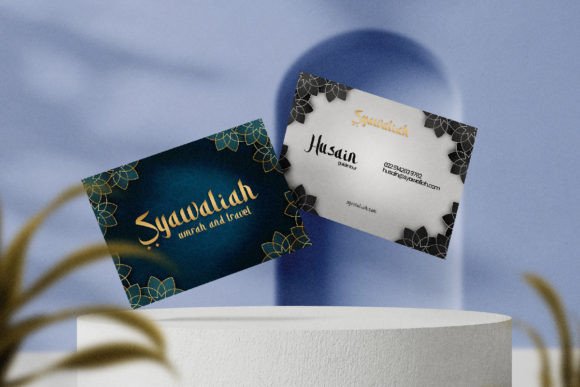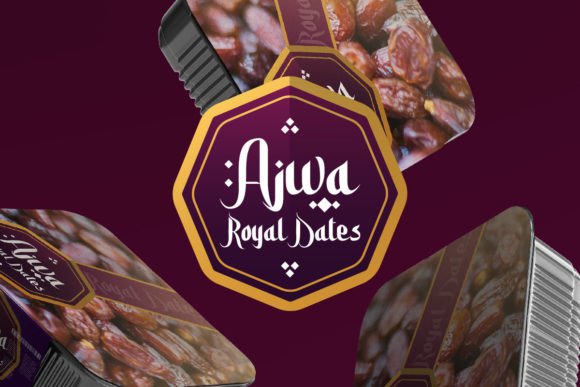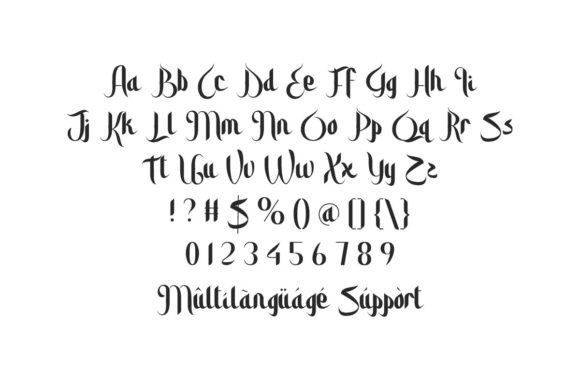
Astaghfirulloh Font is an Arabic-mimicking display font with an original style.
This font will be perfect for Islamic events, branding, Ramadan, or any other Islamic celebration This font will be suitable for many industries such as food and beverage brands, Islamic fashion, restaurants, travel, wedding and event organizers, publishing, and more.
Astaghfirulloh Font offers exceptional quality and versatility, making it a valuable addition to your design toolkit. Whether you’re creating for personal projects or commercial use, Astaghfirulloh Font delivers professional results.